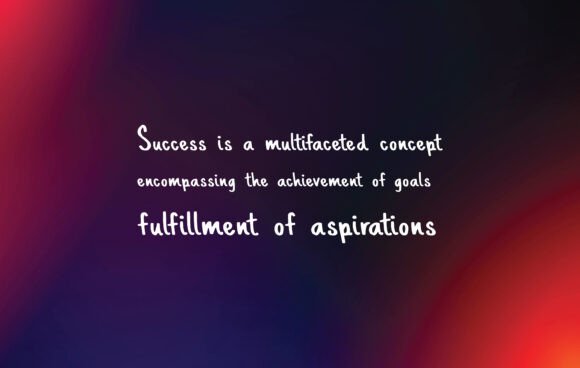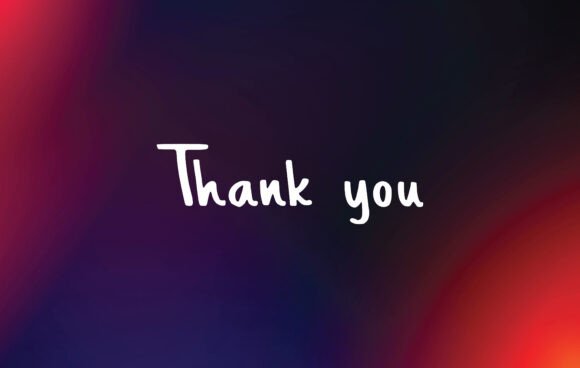
Discover the Charm of Alitzel Font: Elevate Your Designs with this Lovely Handwritten Font
Are you a designer or crafter looking for a font that can add a touch of elegance and sophistication to your creative projects? Look no further than Alitzel Font, a beautiful handwritten font that is sure to take your designs to the next level. In this article, we’ll explore the features and benefits of Alitzel Font, and show you how it can be used to create stunning logos, branding, and quotes.
What is Alitzel Font?
Alitzel Font is a lovely and beautiful handwritten font that is designed to add a personal touch to your designs. With its unique and elegant lettering style, Alitzel Font is perfect for creating eye-catching logos, branding, and quotes that will leave a lasting impression on your audience. Whether you’re a professional designer or a crafty DIY enthusiast, Alitzel Font is a versatile and easy-to-use font that can help you achieve your creative goals.
Features of Alitzel Font
So, what makes Alitzel Font so special? Here are just a few of its key features:
- Unique and elegant lettering style: Alitzel Font has a distinctive and beautiful handwritten style that is sure to add a touch of sophistication to your designs.
- High-quality and legible: Alitzel Font is designed to be highly legible, even at small sizes, making it perfect for use in a variety of applications, from logos and branding to quotes and social media graphics.
- Versatile and easy to use: Alitzel Font is a versatile font that can be used in a wide range of creative projects, from digital designs to print materials.
Benefits of Using Alitzel Font
So, why should you choose Alitzel Font for your next creative project? Here are just a few of the benefits of using this lovely handwritten font:
- Add a personal touch to your designs: With Alitzel Font, you can add a personal and human touch to your designs, making them more relatable and engaging.
- Stand out from the crowd: Alitzel Font is a unique and distinctive font that can help you stand out from the crowd and differentiate your brand or creative project.
- Easy to use and customize: Alitzel Font is easy to use and customize, making it perfect for designers and crafters of all skill levels.
Using Alitzel Font in Your Designs
So, how can you use Alitzel Font in your designs? Here are a few ideas to get you started:
- Logos and branding: Use Alitzel Font to create a unique and memorable logo or brand identity that reflects your personality and style.
- Quotes and social media graphics: Use Alitzel Font to create inspiring and eye-catching quotes and social media graphics that will engage and motivate your audience.
- Digital and print materials: Use Alitzel Font in a wide range of digital and print materials, from business cards and brochures to ebooks and presentations.
In conclusion, Alitzel Font is a lovely and beautiful handwritten font that is perfect for designers and crafters looking to add a touch of elegance and sophistication to their creative projects. With its unique and elegant lettering style, high-quality and legibility, and versatility and ease of use, Alitzel Font is a must-have font for anyone looking to take their designs to the next level. So why wait? Download Alitzel Font today and start creating stunning logos, branding, and quotes that will leave a lasting impression on your audience.